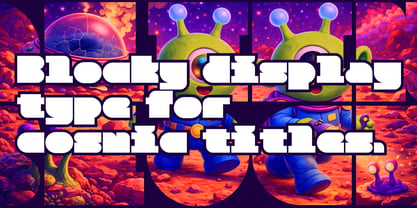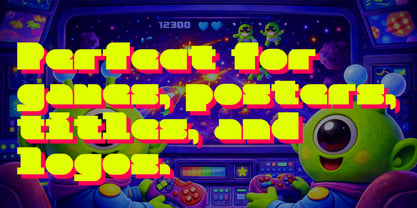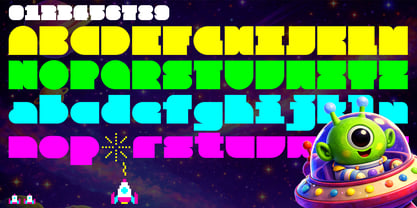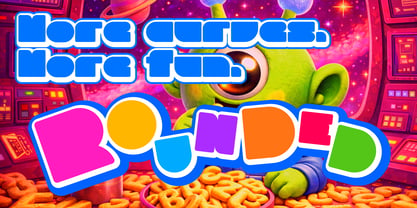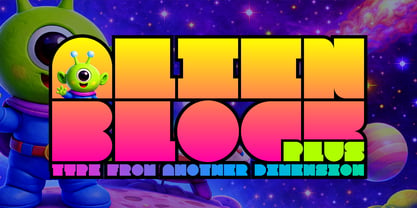
Alien Block Plus
A família de fontes Alien Block Plus foi desenhada por Kensuke Uchida e publicada pela Koci. Alien Block Plus contém 2 estilos e opções de pacote familiar. Saiba mais sobre esta família
Alien Block Plus
Alien Block Plus is a modular display typeface designed to expand the possibilities of logos, titles, branding, and typographic composition. It combines the structural consistency of monospaced typography with the visual balance of proportional spacing, creating a hybrid system that brings together the strengths of both approaches.
Built around a shared modular unit, most glyphs follow a common width while selected letters and symbols are intentionally adjusted using optical spacing. This creates a consistent architectural rhythm without sacrificing visual harmony. Characters can be aligned like tiles or staggered like bricks, making Alien Block Plus especially effective for modular layouts, graphic identities, posters, editorial headlines, and experimental typography.
Rather than being designed for extended reading, Alien Block Plus is optimized for display use, where typography becomes an essential part of the visual expression. Its modular structure encourages designers to explore new compositional possibilities while remaining intuitive and practical to use.
One of the typeface's distinctive features is its spacing system. The space character is intentionally set to half of the base modular unit, allowing two consecutive spaces to restore the original grid alignment. More than a stylistic choice, this functions as a practical tool for modular layout control during the design process.
Alien Block was originally developed as an exploration of modular typography and is also available as an open-source typeface through Google Fonts. Alien Block Plus builds upon the same design philosophy with an expanded character set and the exclusive Alien Block Plus Rounded companion, providing greater flexibility for multilingual branding and professional display typography.